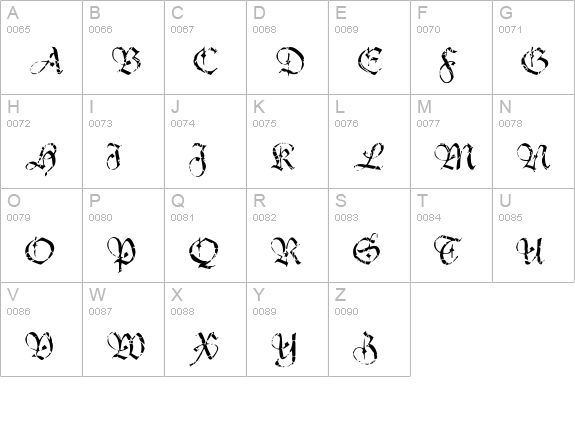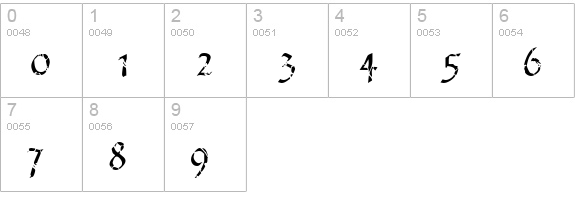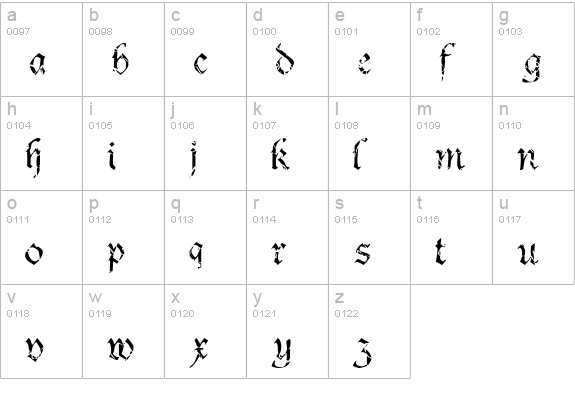
Crumble Font Details
Crumble font is a unique and creative typeface that exudes a sense of playful elegance. With its irregular and hand-drawn letterforms, this font adds a touch of whimsy to any design project. Each character is meticulously crafted to appear as if it has been delicately crumbled, giving it a charming and organic feel. This versatile font is perfect for a wide range of applications, from branding and packaging to posters and social media graphics. Its friendly and approachable aesthetic makes it ideal for conveying a warm and inviting message to your audience. But the best part? Crumble font is completely free! You can easily download it from FontsMarket.com, a trusted source for high-quality and freely available fonts. Whether you're a professional designer or a hobbyist, this font offers a fantastic opportunity to elevate your creative work without breaking the bank. So go ahead, unleash your imagination and embrace the delightful charm of Crumble font. With its freely accessible nature, you can bring a touch of magic to your designs without any restrictions. Download it today and let your creativity crumble into something truly extraordinary.